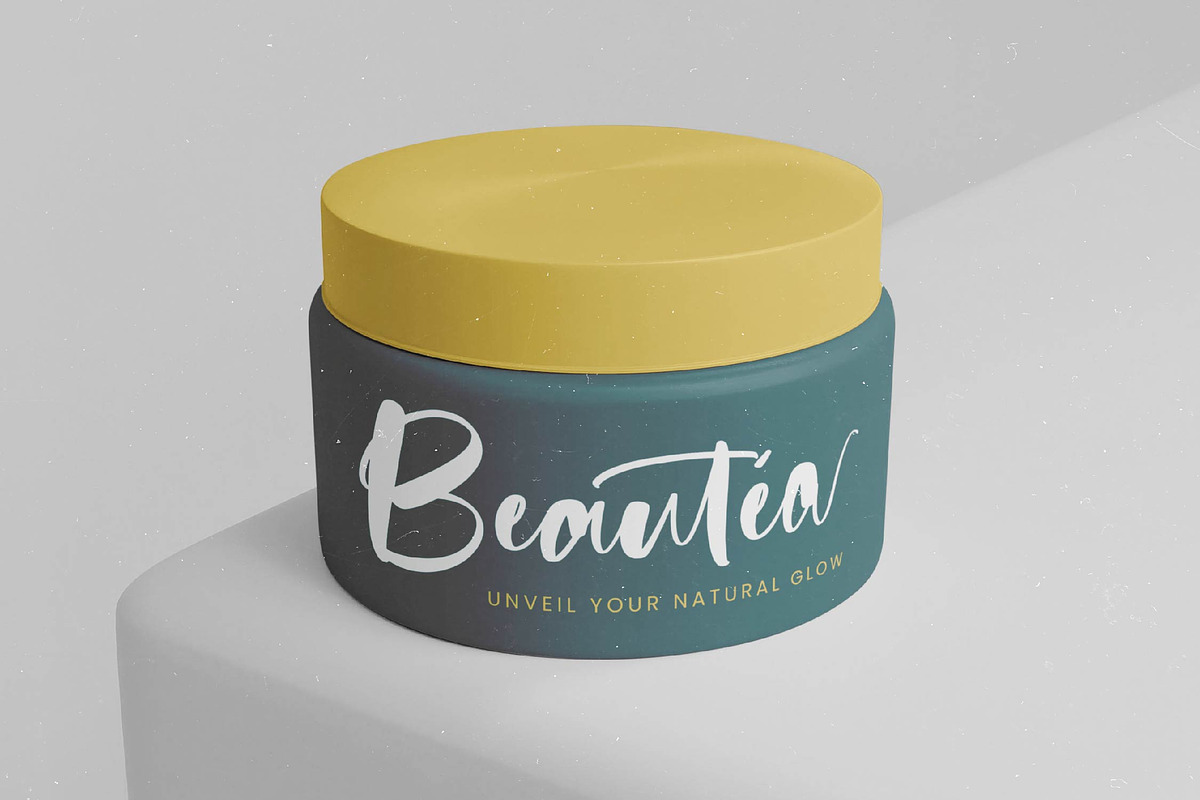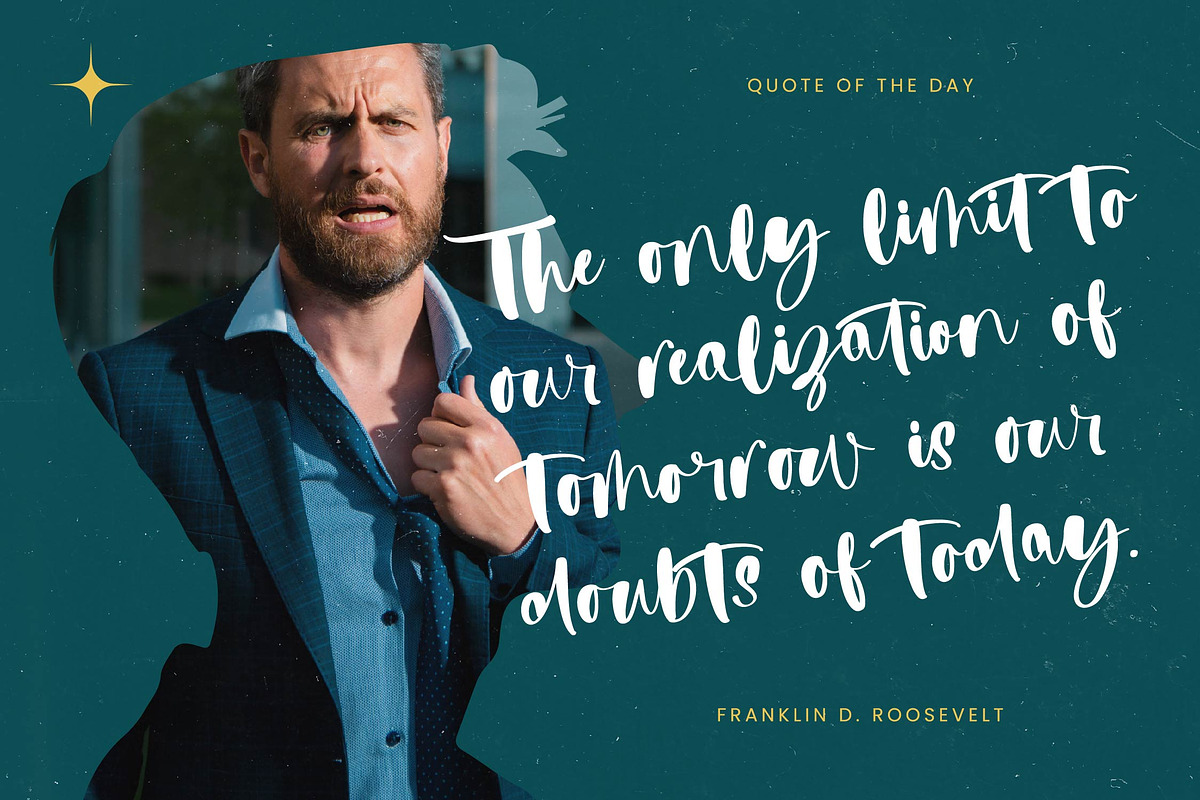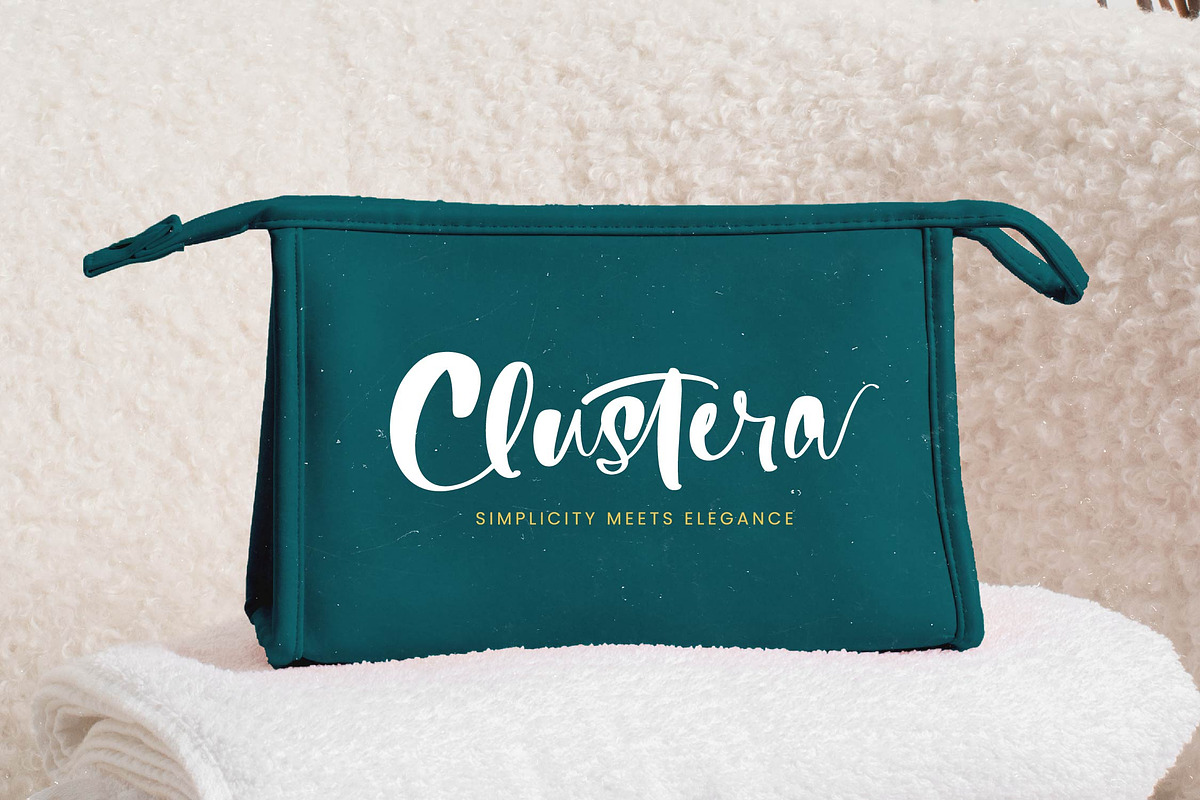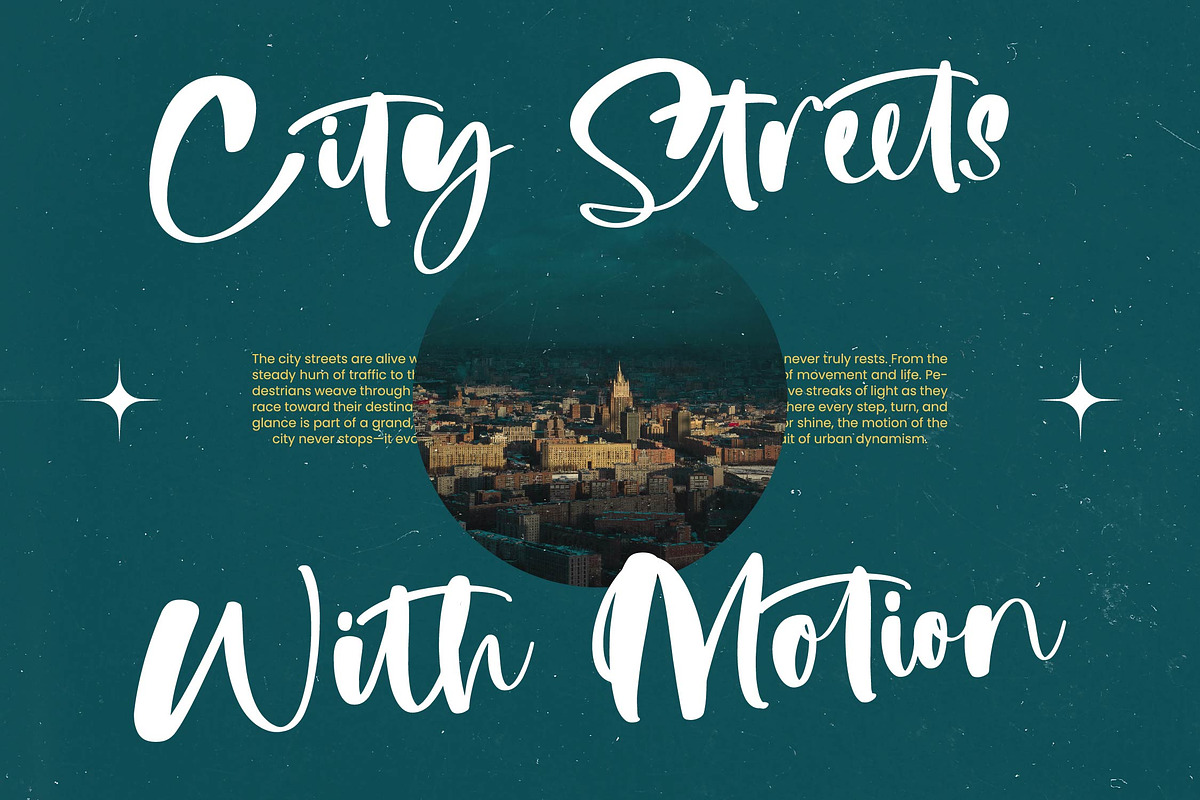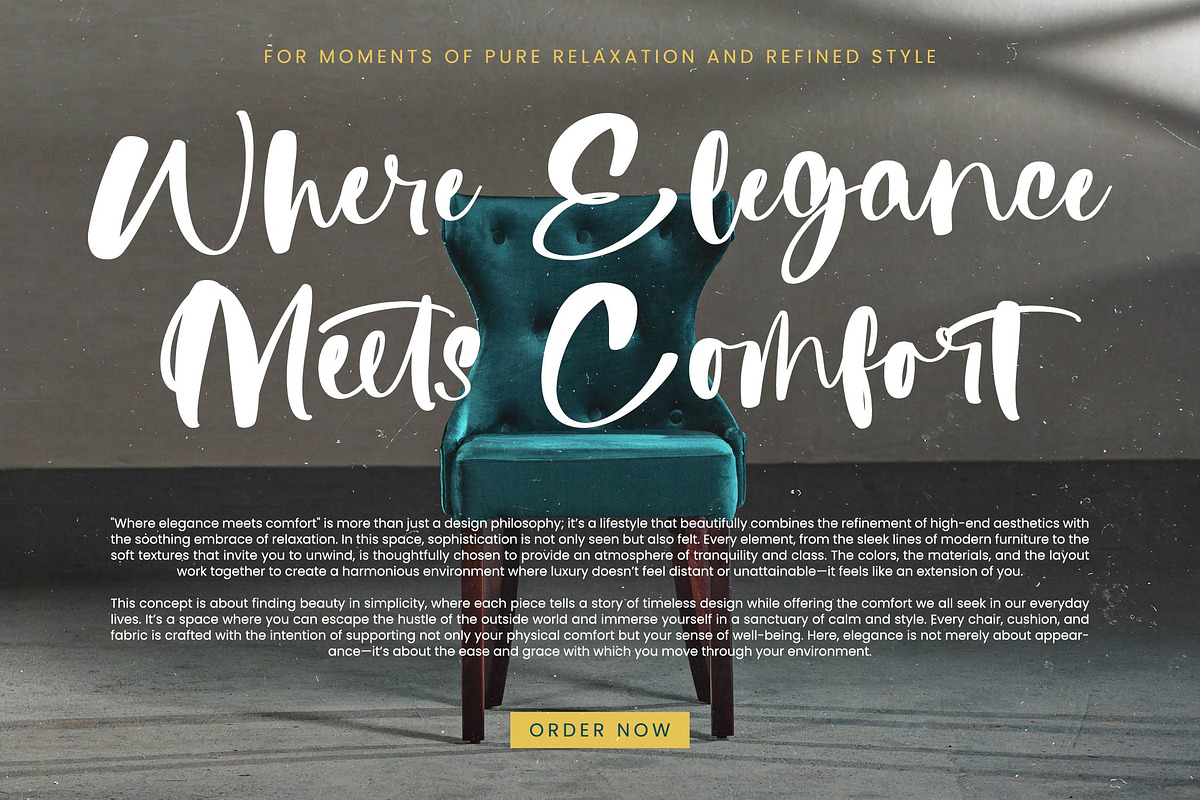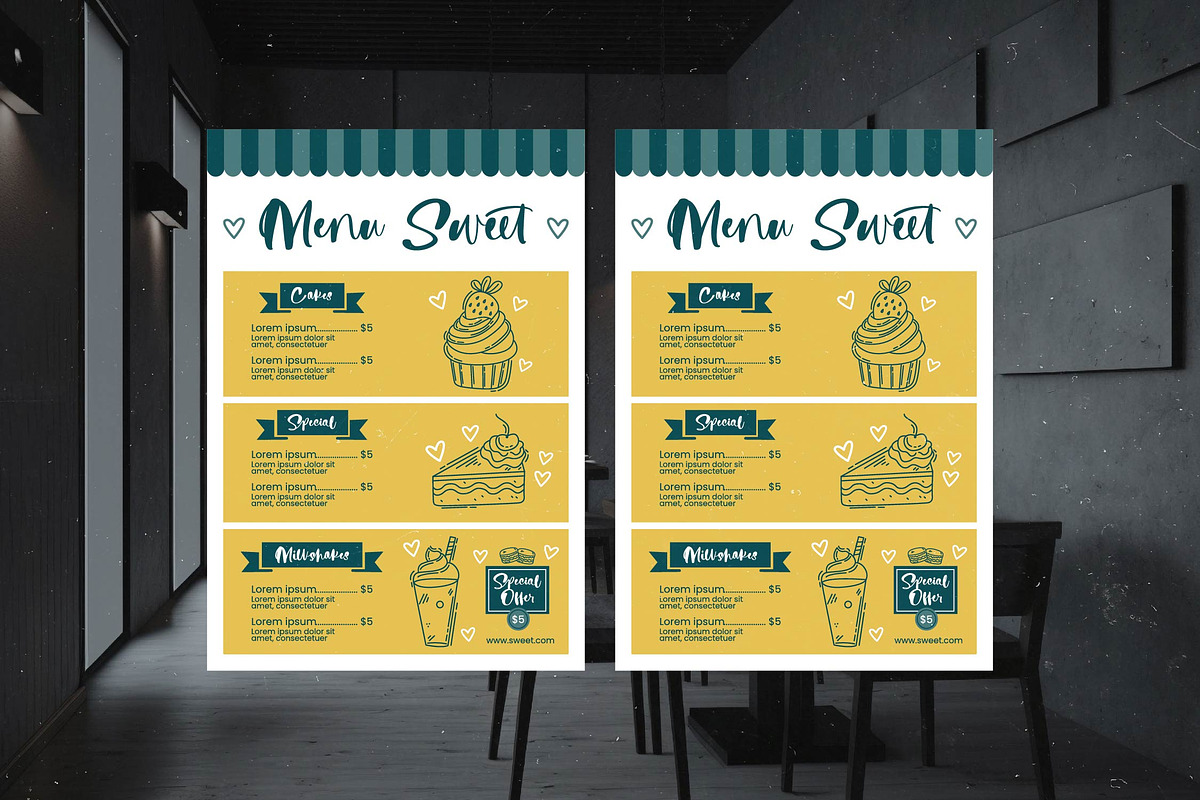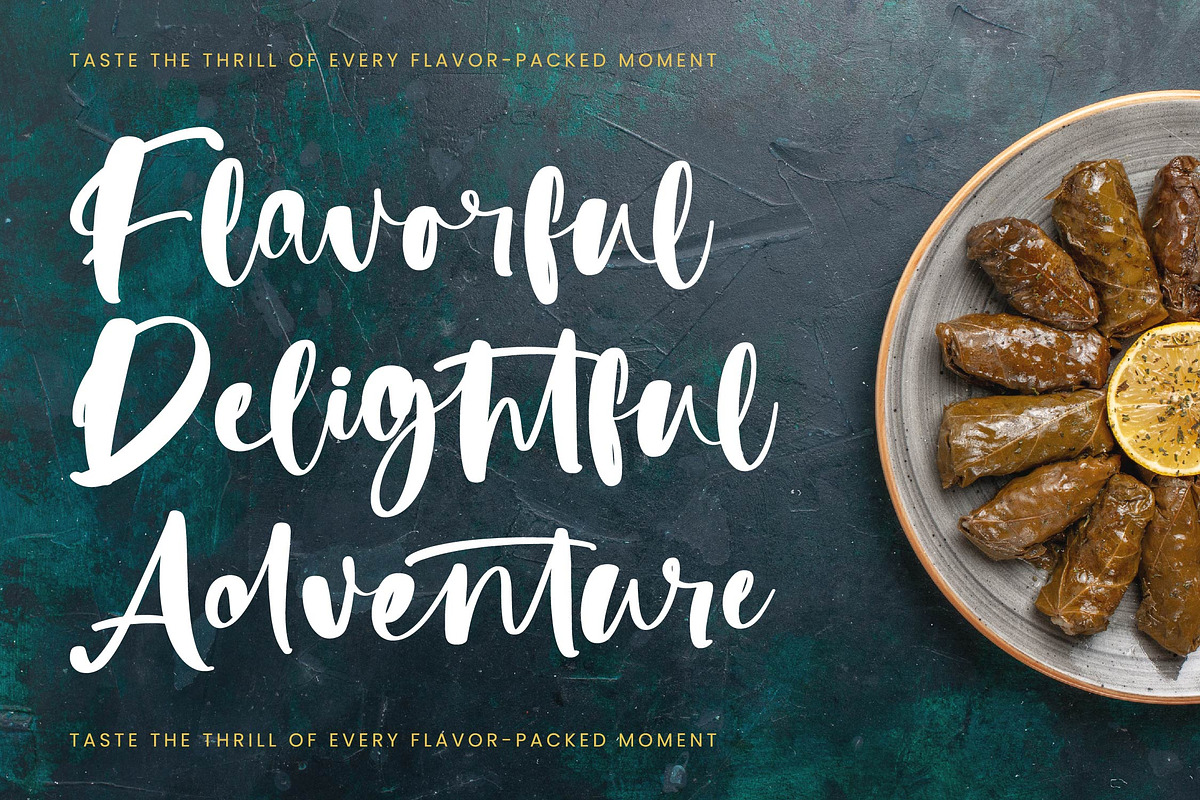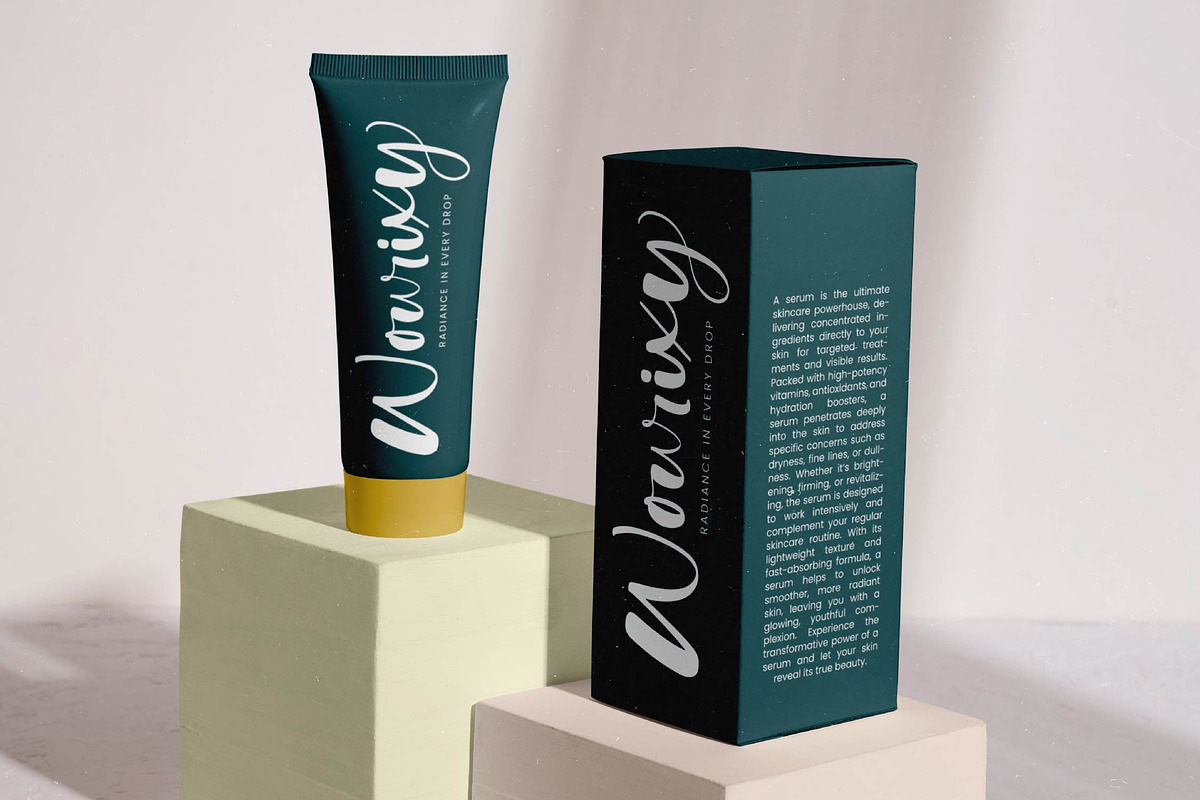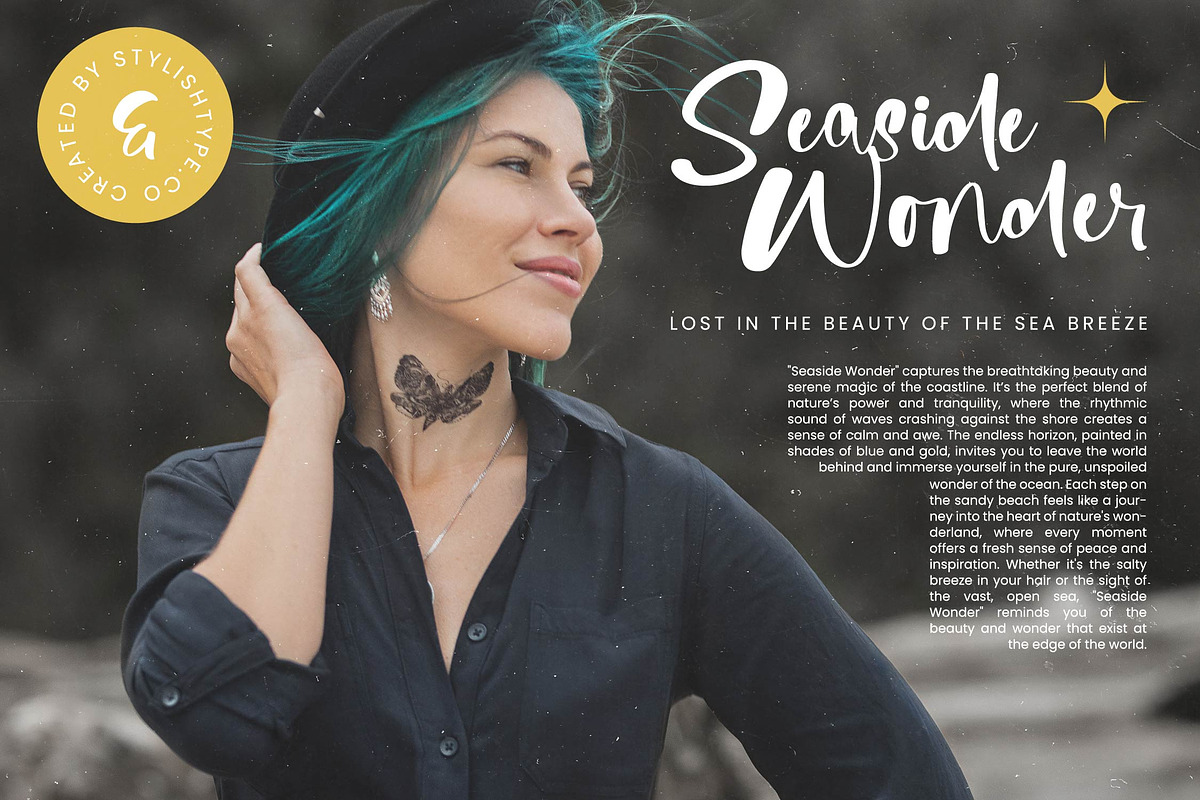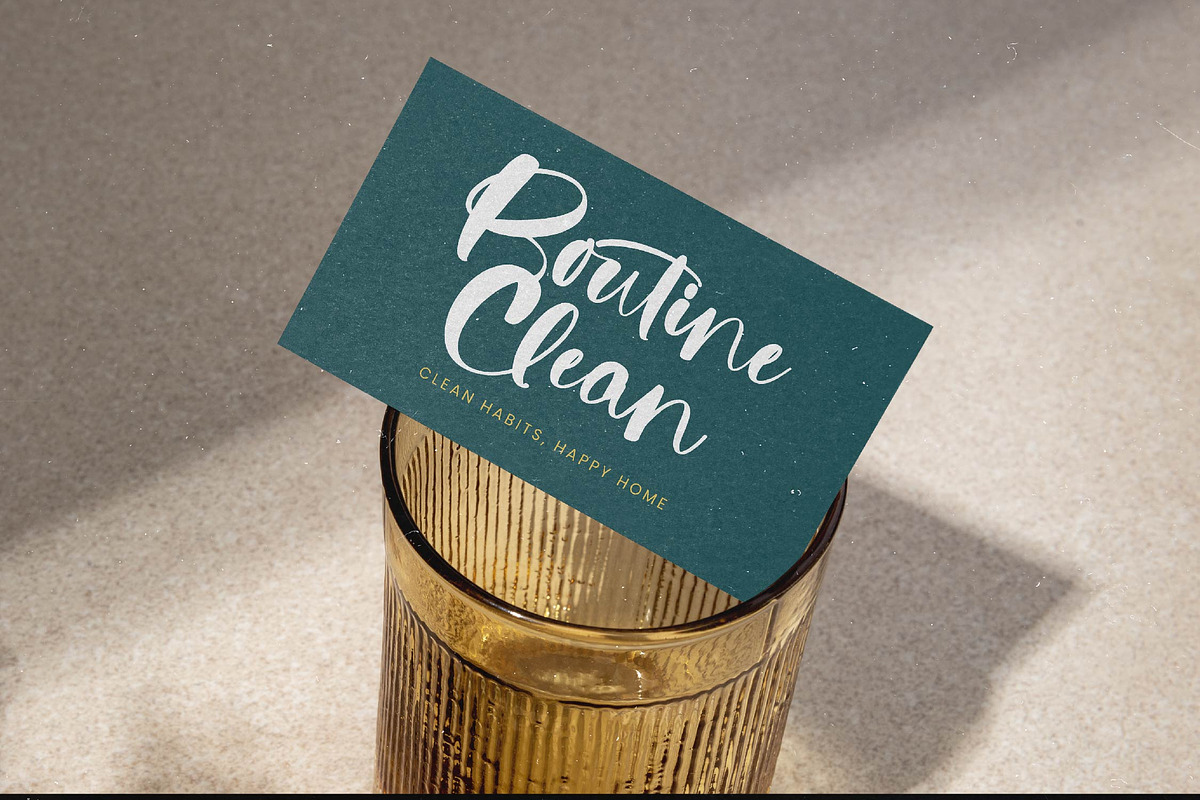
Refresh Youter Bold Handwritten Font
Refresh Youter - Bold Handwritten Font , from Stylishtype.Co , Suitable for any projects such as: logos, branding projects, homeware designs, product packaging, mugs, quotes, posters, shopping bags, t-shirts, book covers, name card, invitation cards, greeting cards, label, photography, watermark, special events, and all your other luxury and beautiful projects that need a Luxury Script taste.
- 214 Ligature 56 Alternates & Swashes